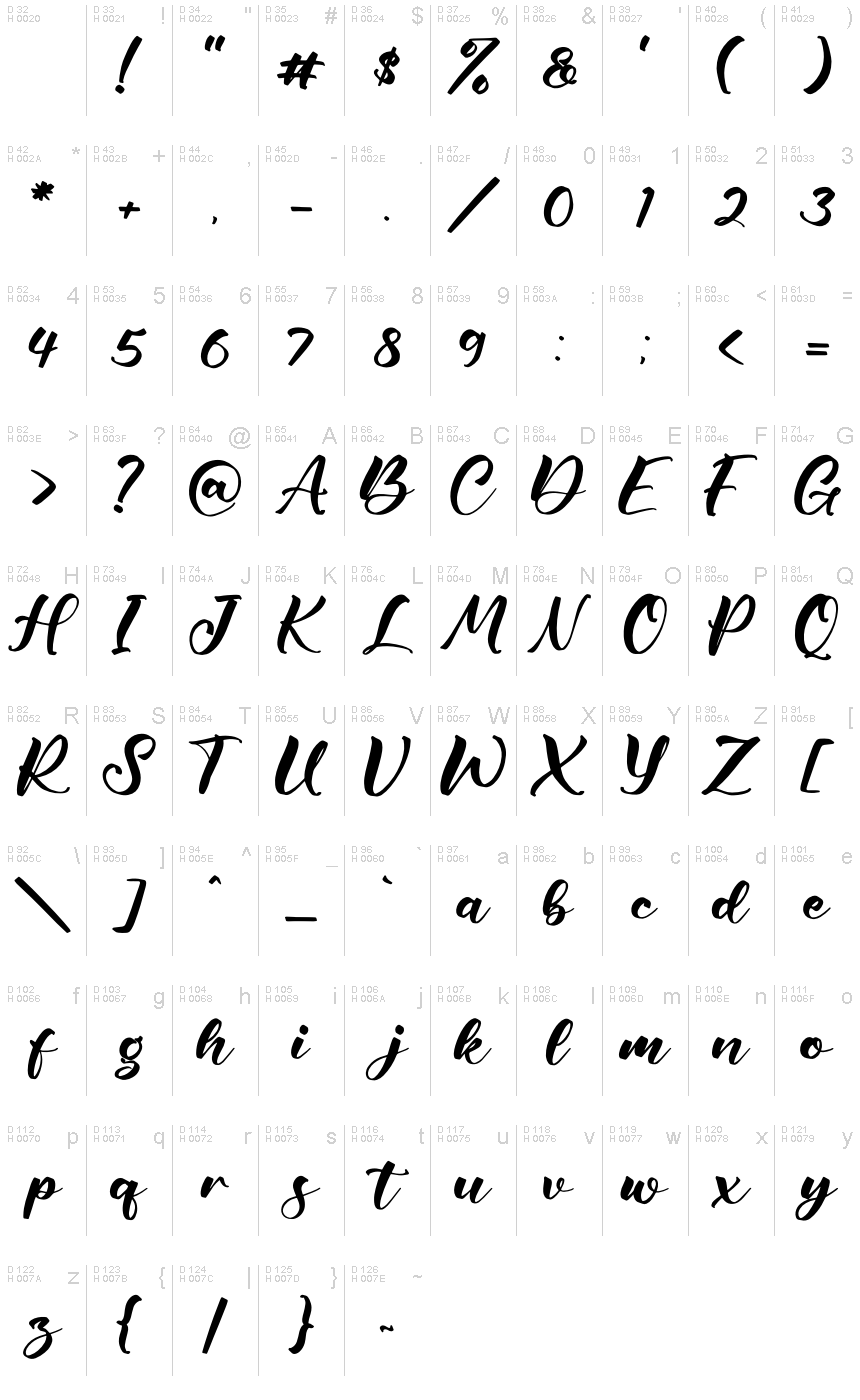
Calistelo Delisha, crafted by Letterena Studios, is a stunning calligraphy font that exudes elegance and grace. Its flowing, cursive lines create a sense of fluidity and movement, making it perfect for designs that require a touch of sophistication. The bold yet delicate strokes offer a striking balance, making each character stand out beautifully.
Ideal for wedding invitations, luxury branding, and high-end packaging, Calistelo Delisha adds an air of refinement to any project. Its intricate design captures attention without overwhelming the viewer, ensuring readability while maintaining artistic flair.